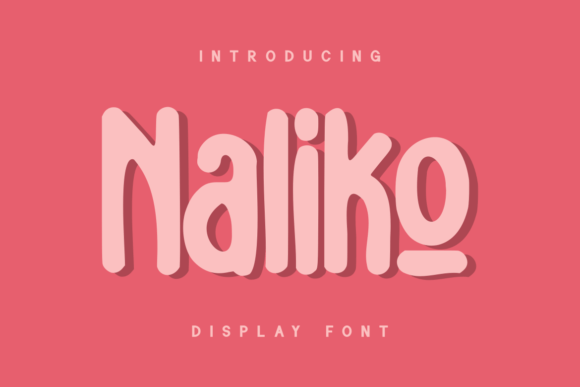
Unleash the Joy of Expression with Naliko Font - The Ultimate Font for Kids Ministry
Immerse yourself in the world of creativity with Naliko Font, a meticulously crafted display font designed to ignite imagination and captivate hearts. Inspired by the innocent wonder of childhood, Naliko's playful and charming strokes bring life to your designs, making it the perfect choice for kids' ministry projects.
Step into a Realm of Endless Storytelling
With Naliko Font, storytelling takes on a new dimension. Its whimsical characters dance across the page, inviting young minds on an enchanting journey of discovery. Engage children with captivating visuals that spark their imagination and leave a lasting impression.
Create Designs that Speak to the Heart
Naliko Font's simple yet elegant design exudes warmth and friendliness, creating a welcoming atmosphere that resonates with children. Its versatile nature allows you to craft designs that resonate with kids' unique personalities, fostering a sense of connection and belonging.
Make Learning Fun and Engaging
Naliko Font transforms learning into an interactive adventure. Its playful style captures children's attention, making lessons more enjoyable and memorable. Whether creating educational materials, presentations, or interactive games, Naliko Font captivates young minds, turning learning into an exciting and rewarding experience.
The Perfect Font for Kids Ministry Projects
From vibrant posters and captivating flyers to interactive presentations and engaging social media graphics, Naliko Font is the ultimate choice for kids' ministry projects. Its versatility knows no bounds, allowing you to create designs that connect with children on a deeper level, fostering a sense of community and belonging.